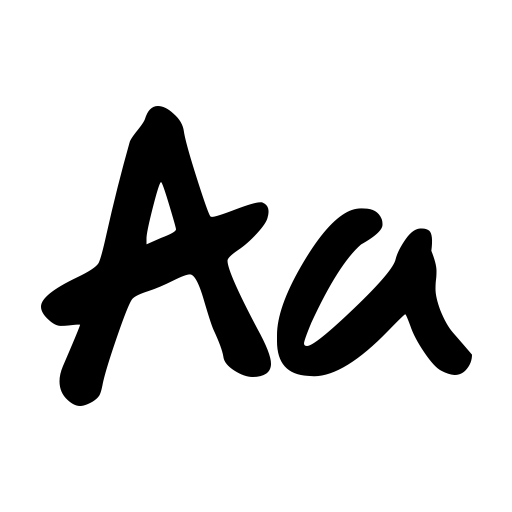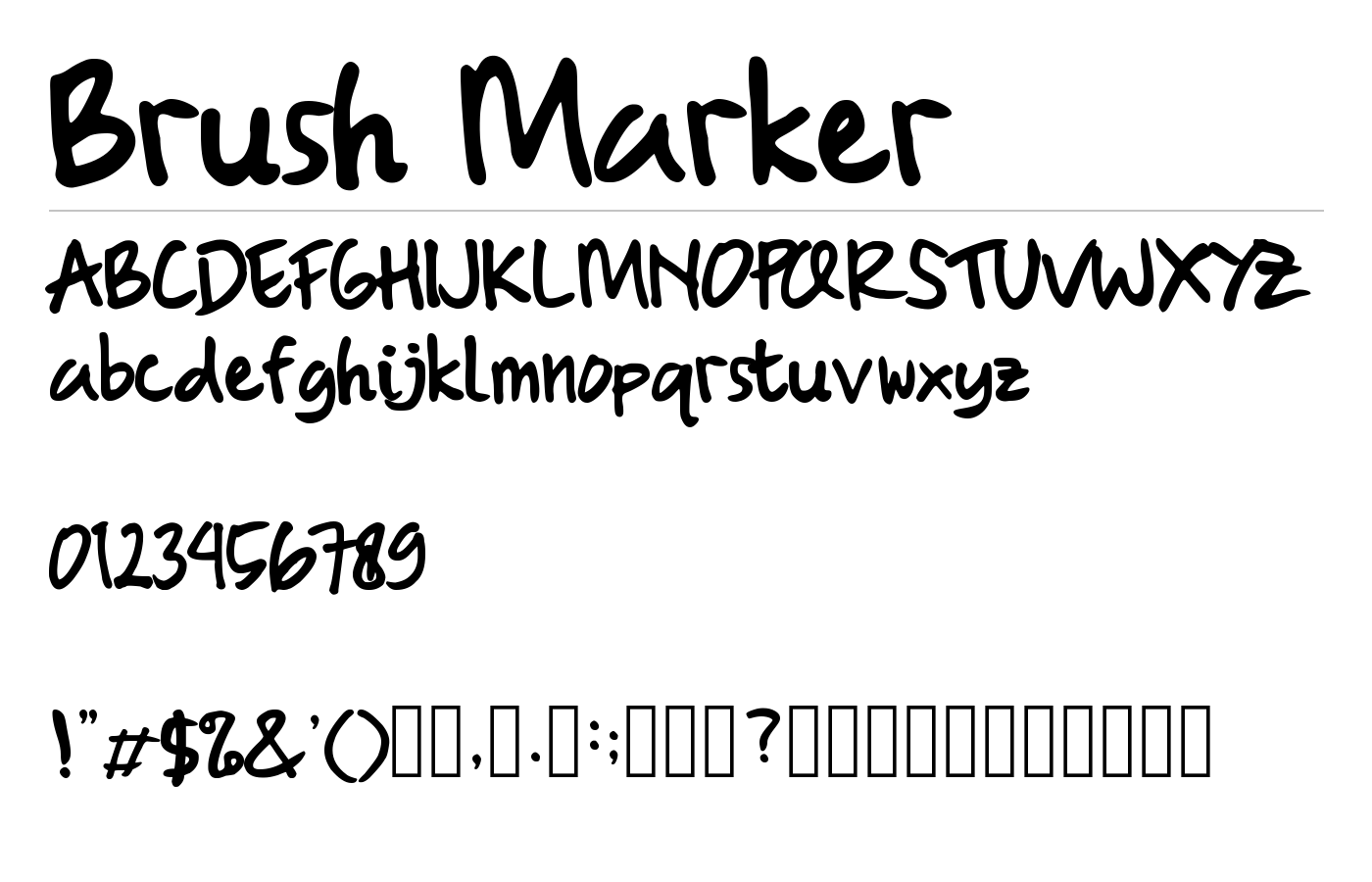
Brush Marker Font is a casual, handwritten script style that mimics the bold, organic strokes of a felt-tip marker. Its lively, slightly irregular letterforms convey a friendly and approachable vibe, making it ideal for creative projects, informal branding, and playful headlines. This font works best when you want to add a personal, dynamic touch with an authentic hand-drawn feel.
Brush Marker Font
About Brush Marker Font
| Font family | Brush Marker Font |
| Designer | Upansulfan |